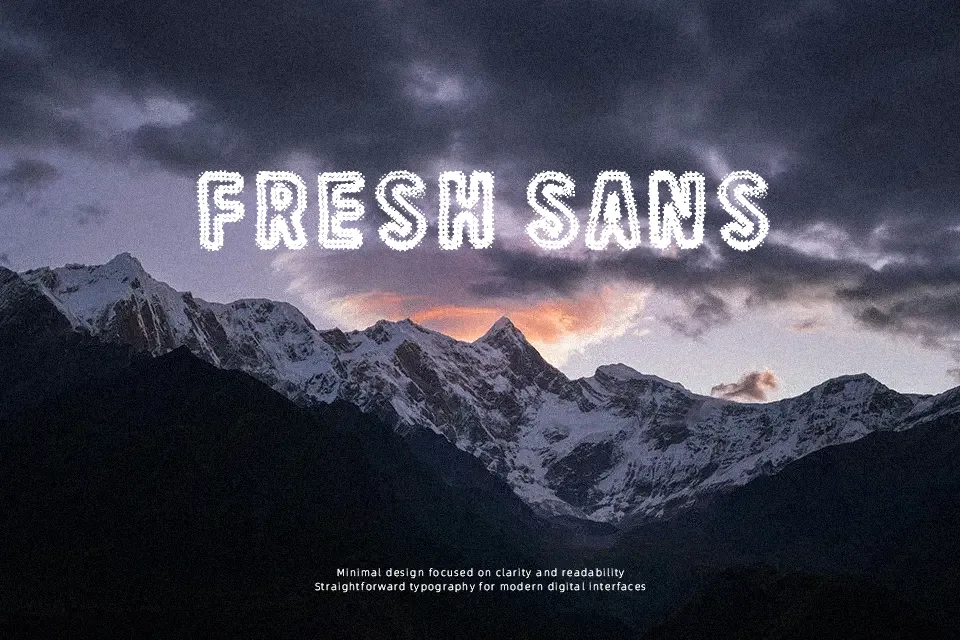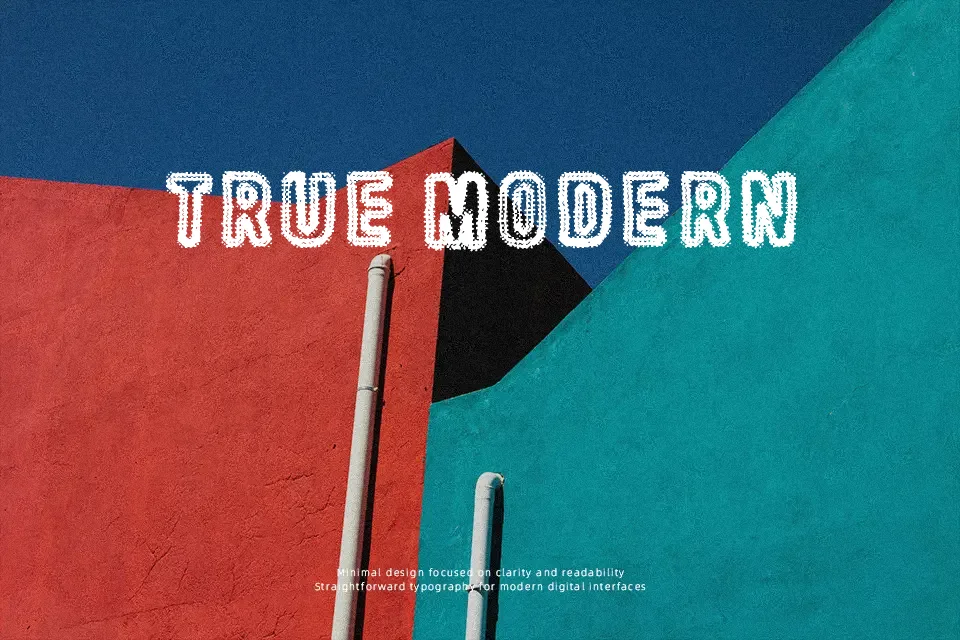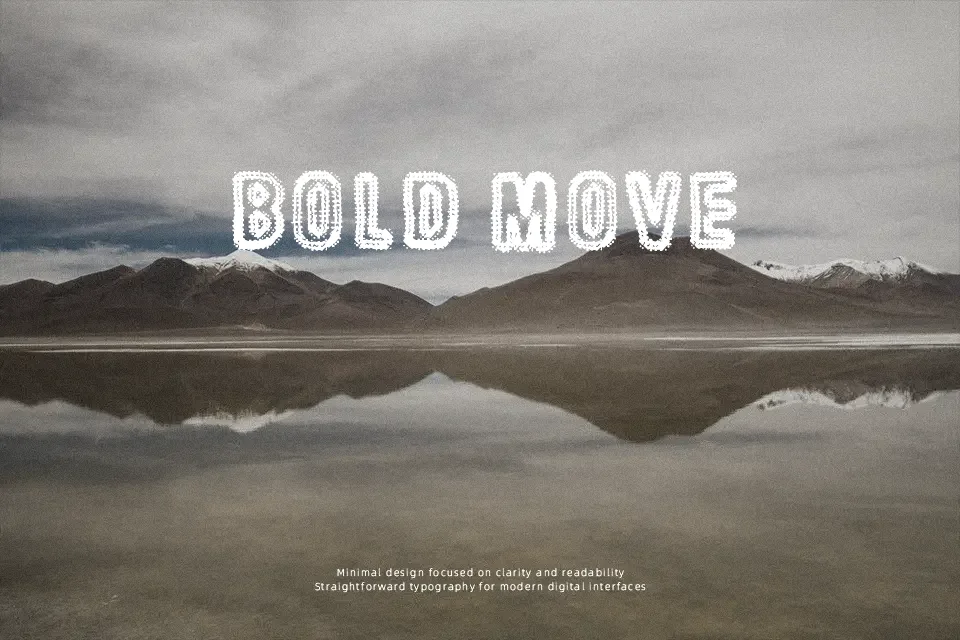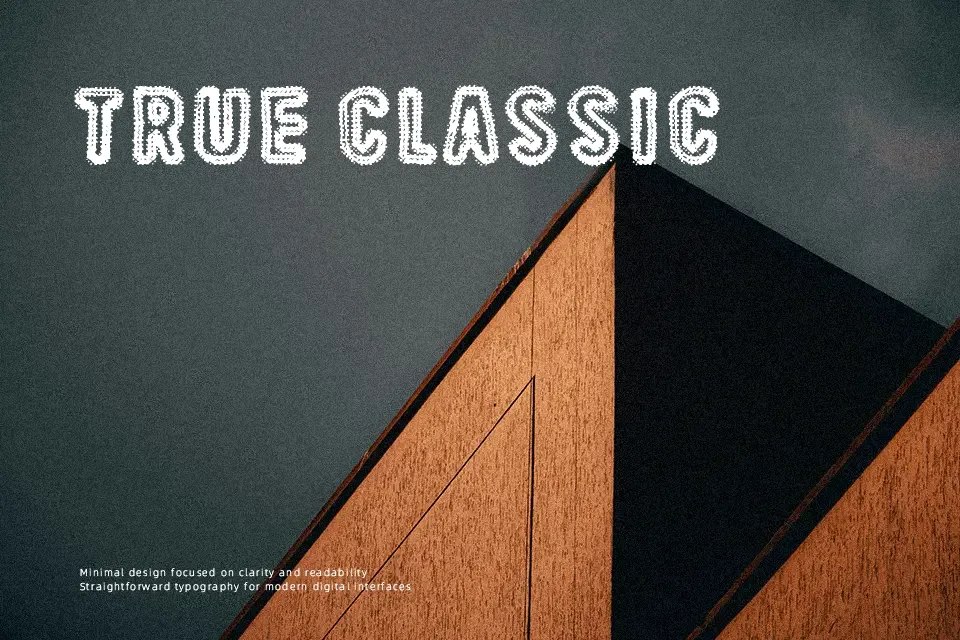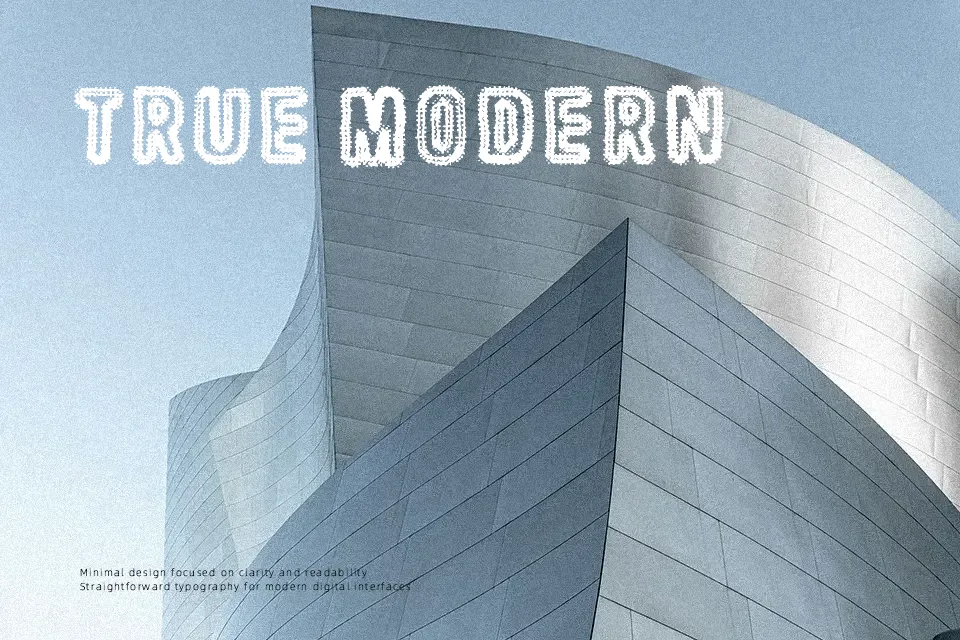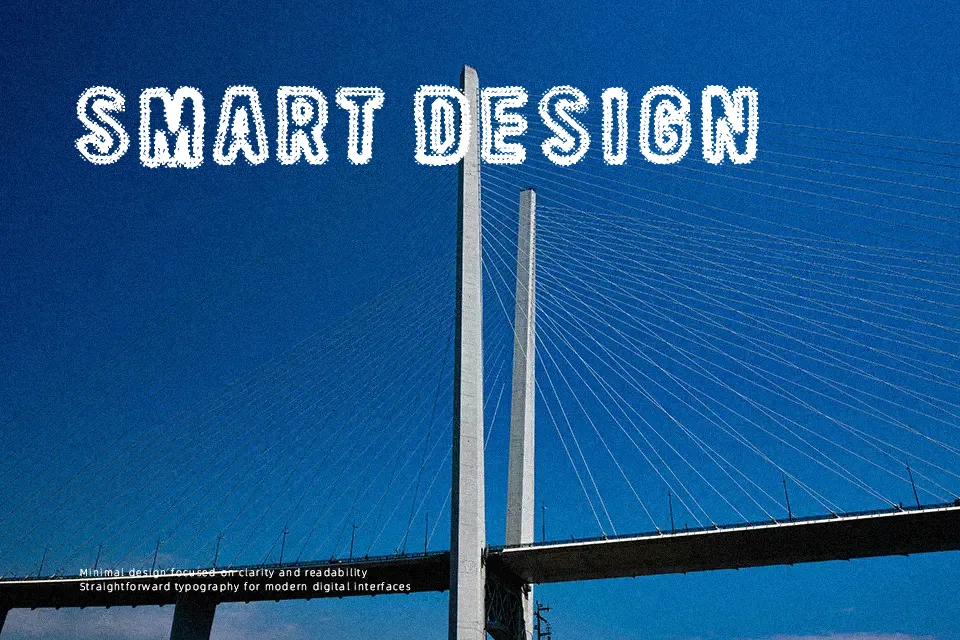
Beast Of Burden Font
Designed by Juha Korhonen
This font leans into jagged outlines, uneven curves, and distorted shapes, giving every word a heavy, distressed look. The spacing feels compact and restless, creating dense, high-impact headlines rather than calm, airy layouts. Beast Of Burden reads as a decorative, grunge-style display face suited to horror events, metal band artwork, zines, and alternative fashion branding that needs a rough attitude. It struggles in small sizes or long text blocks, where the distortion quickly becomes tiring and hurts legibility. Use it when you need a loud, gritty accent font, but pair it with a cleaner companion typeface for body copy or structured information.
horror movie titles
underground music posters
skate or metal brand logos
minimalist tech interfaces
small UI labels
Perfect for branding, halloween, and logo, with a bold and decorative style.